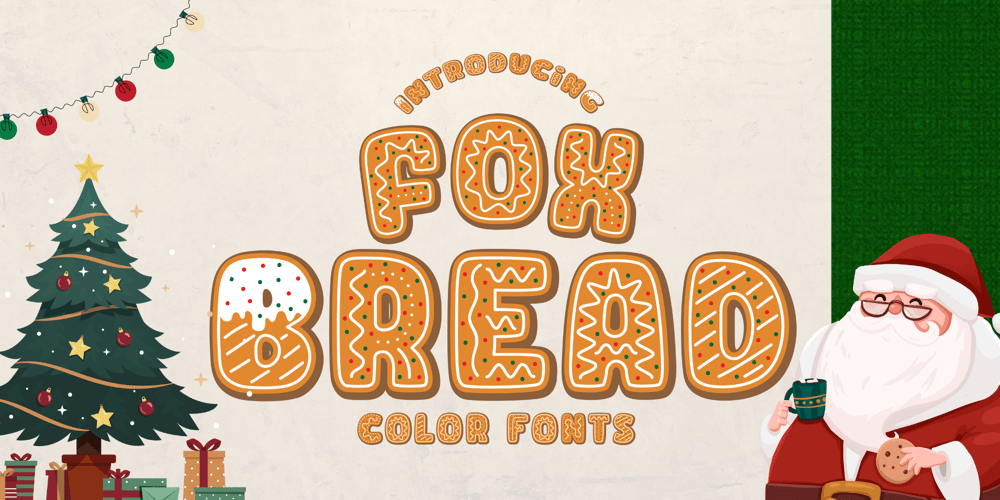
Fox Bread Font Family was designed by Rattana Rattanawan and published by Fox7. Fox Bread contains 1 styles and family package options. Fox Bread is a delightful gingerbread cookie-style color font, perfect for adding a festive touch to your creative projects. Whether you’re designing greeting cards, posters, banners, invitations, or any other holiday-themed piece, this font brings the warmth and charm of the season to life. Add Fox Bread to your collection and spread holiday cheer with every design!OpenType full-color (SVG) fonts are installed like any normal . OpenType full-color (SVG) fonts are installed like any normal .Read more about these color fonts in our What are color fonts manual. https://www.creativefabrica.com/the-ultimate-font-guide/what-are-color-fonts/🌺🌺 Please note that the Canva do not support color fonts! 🌺🌺